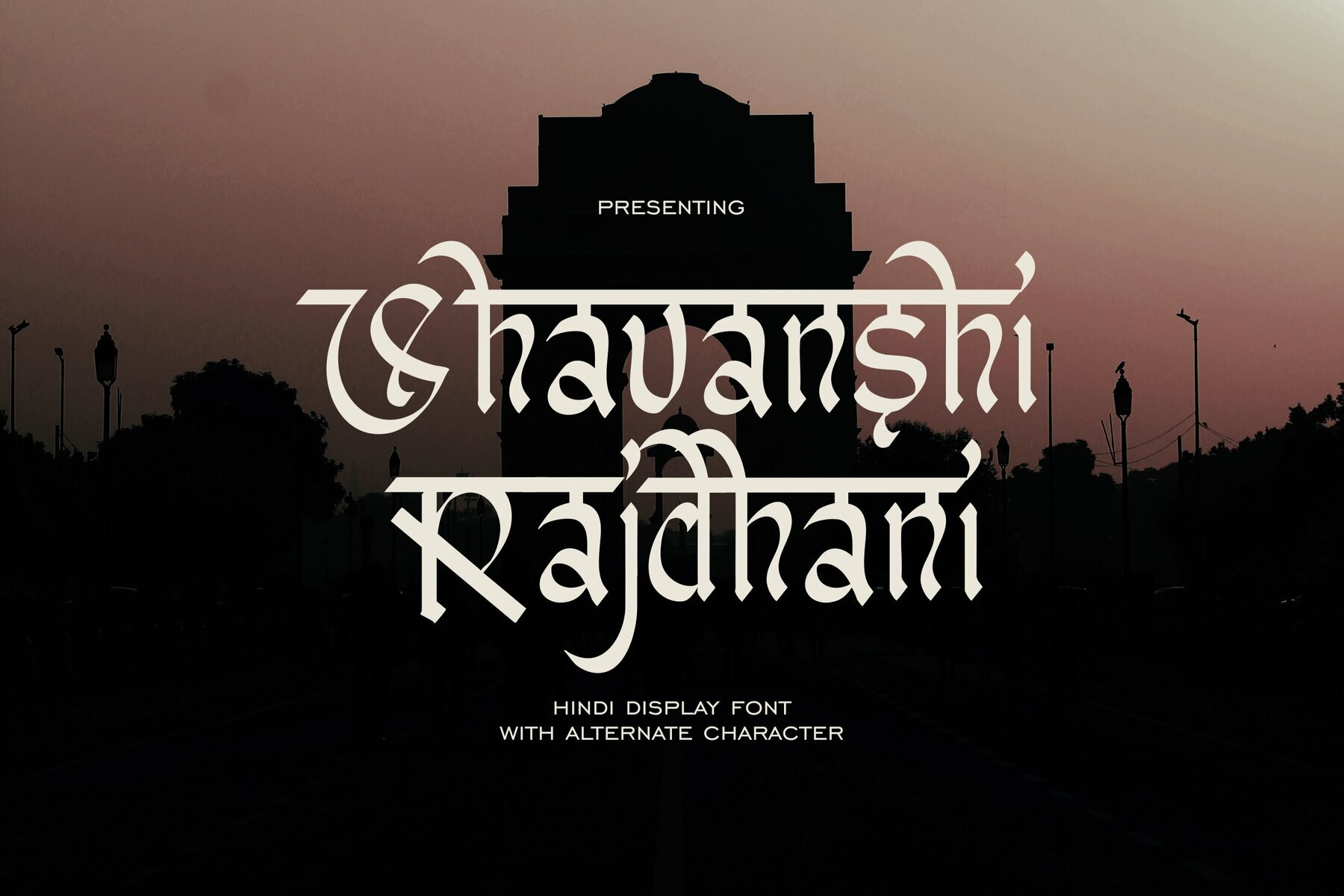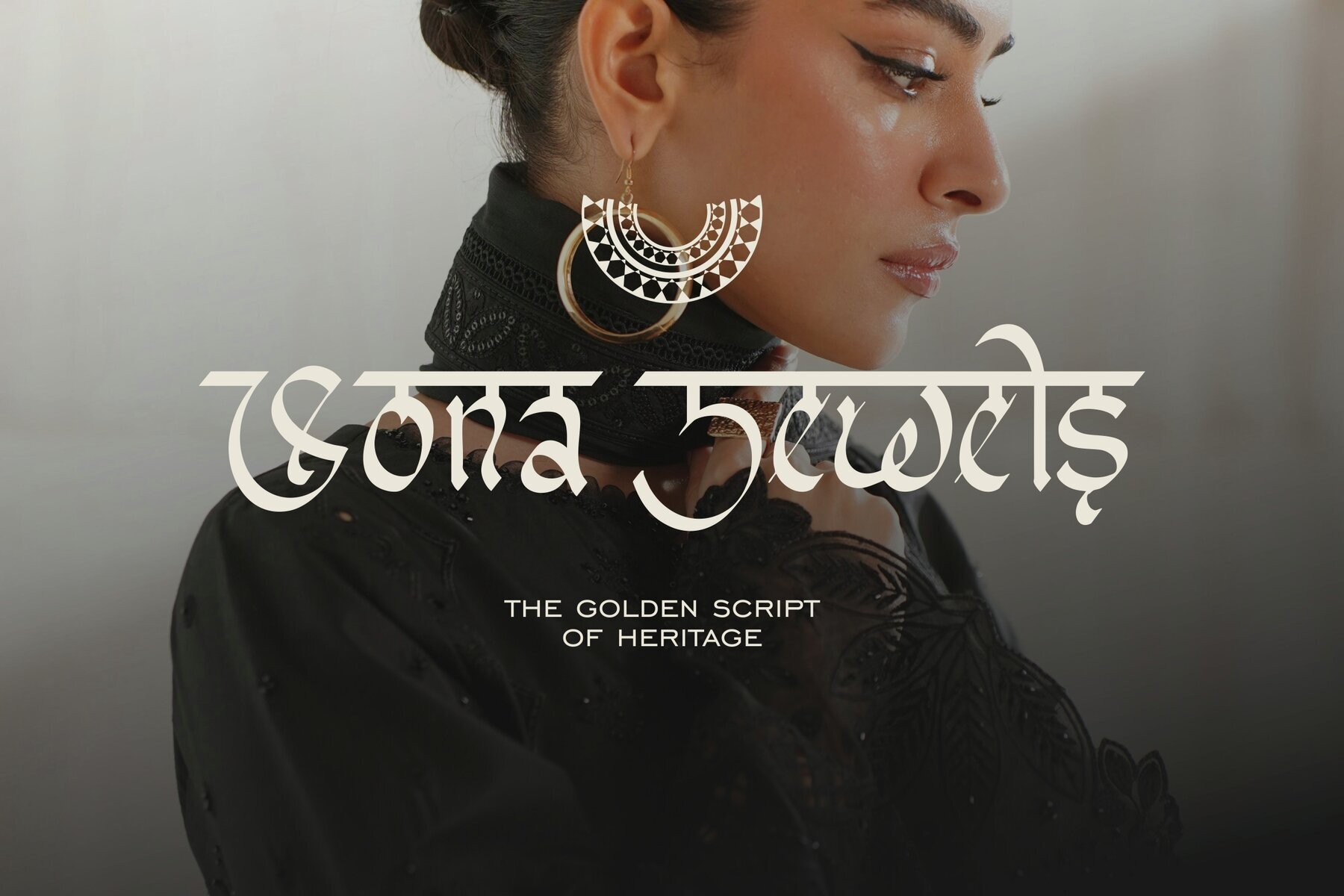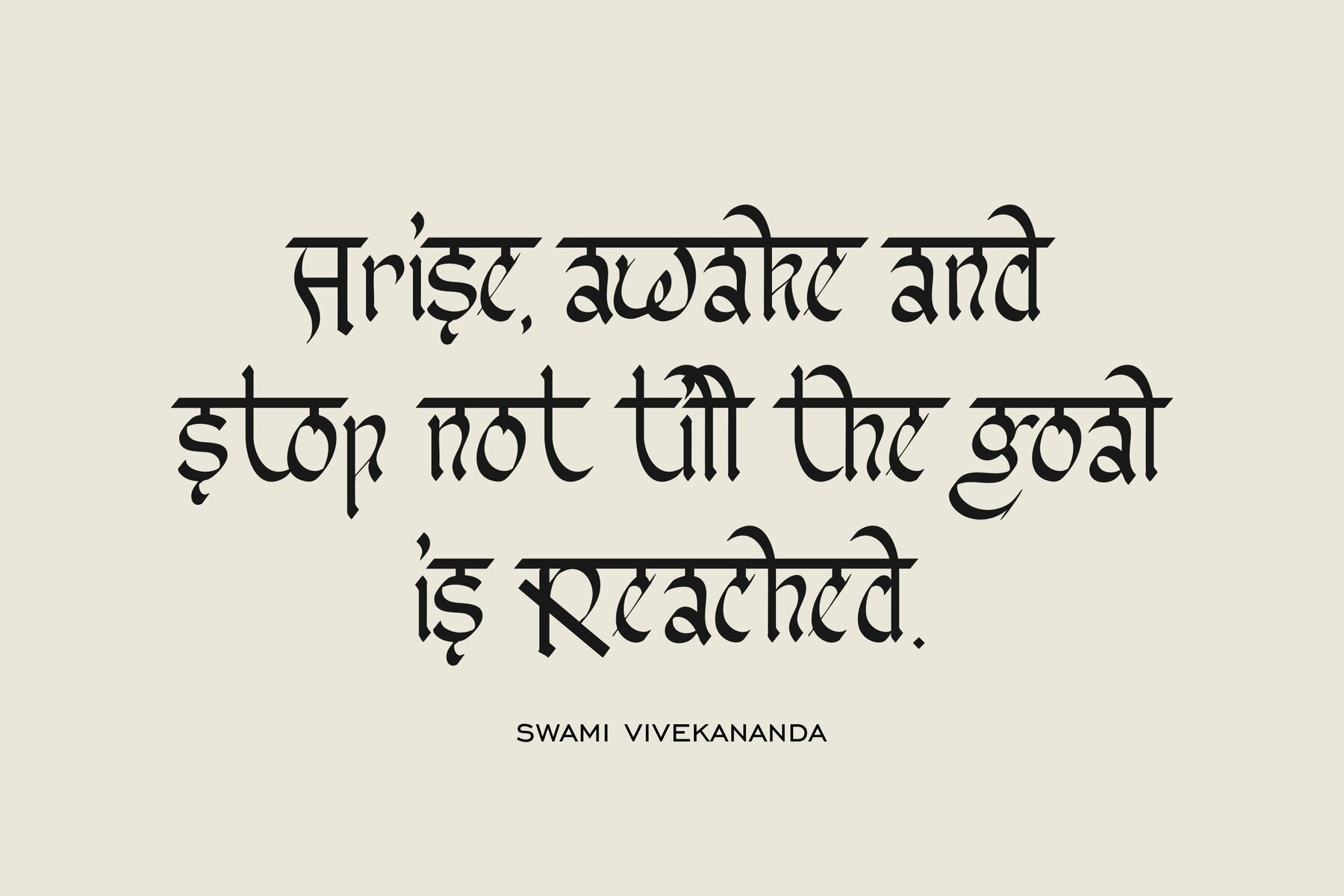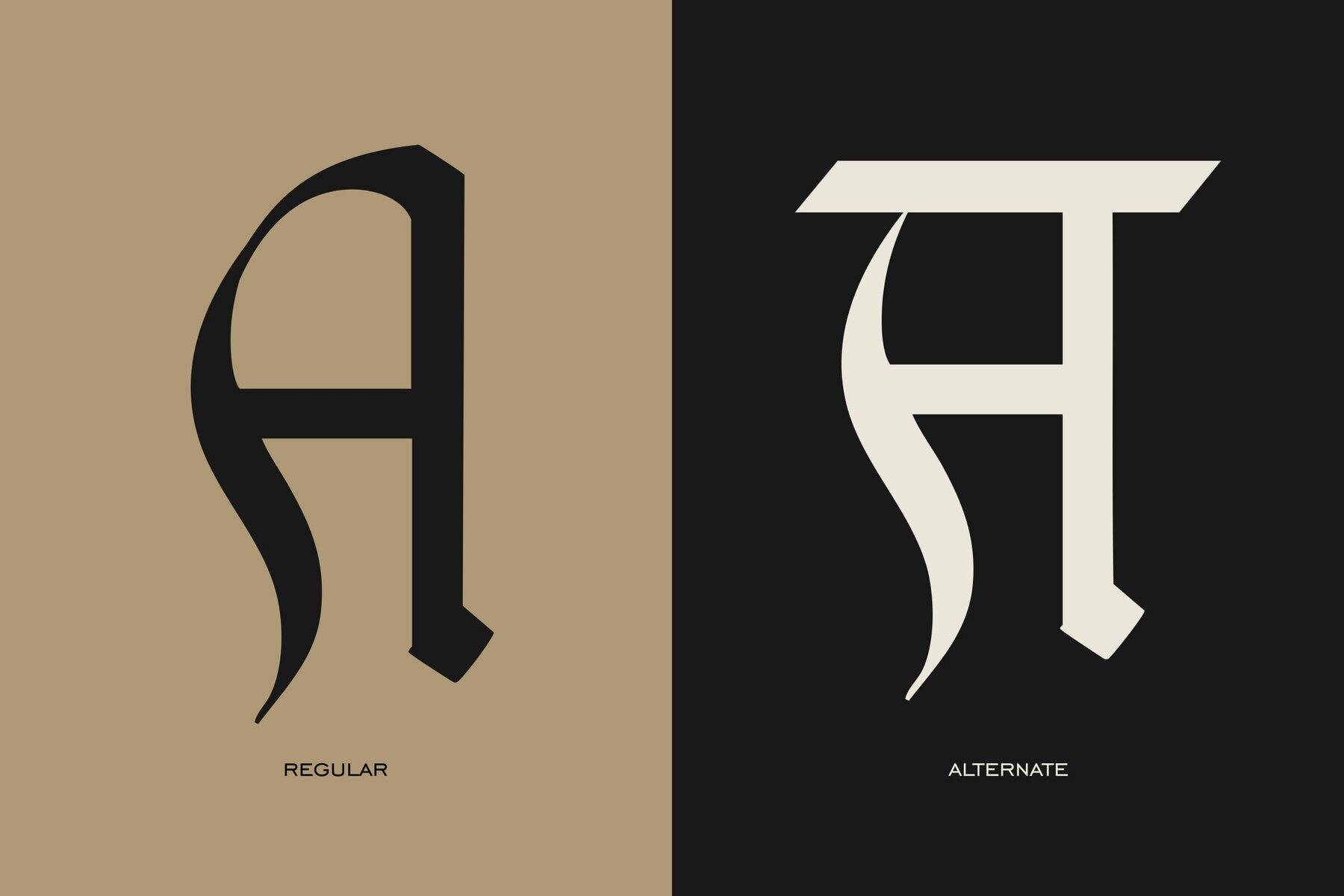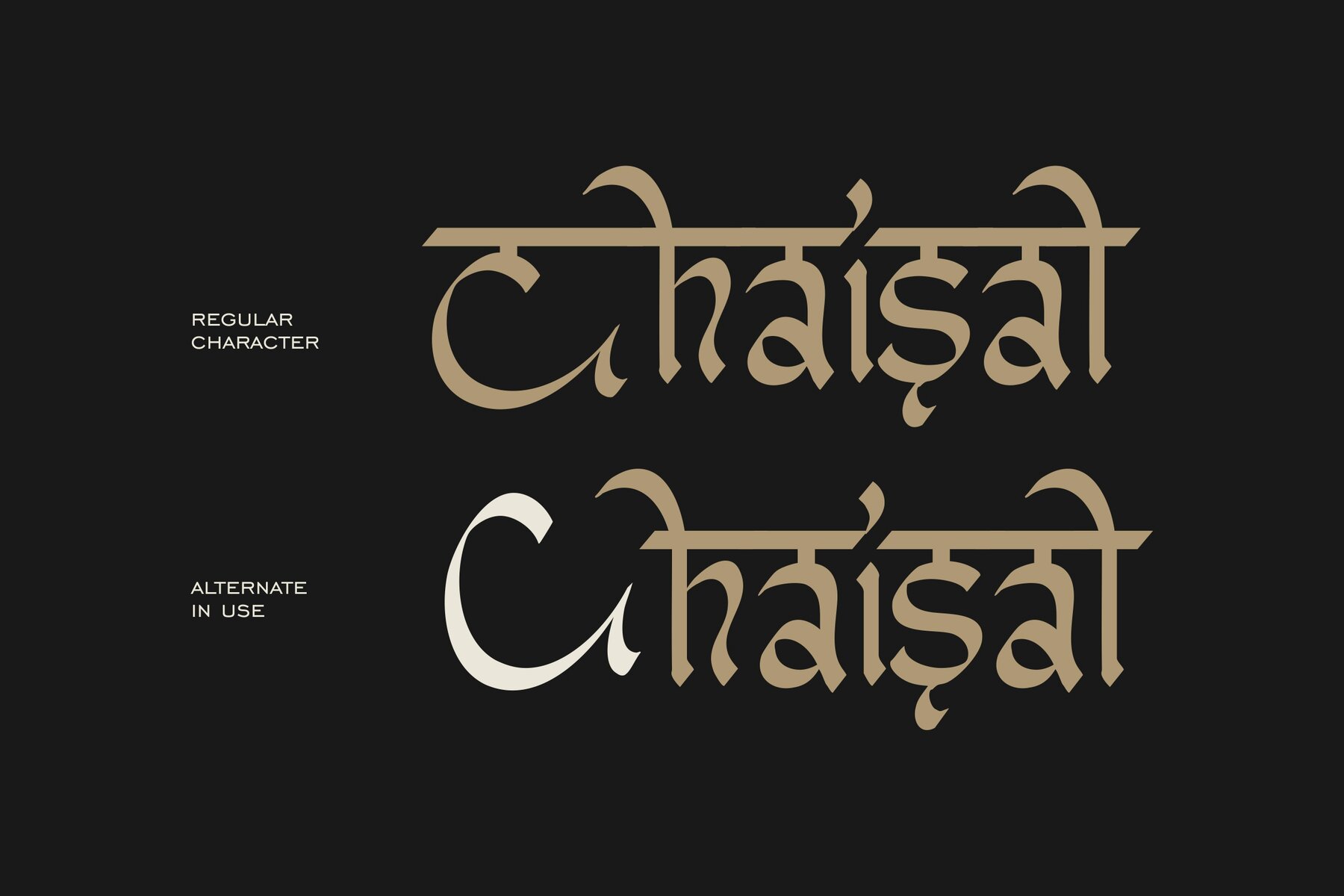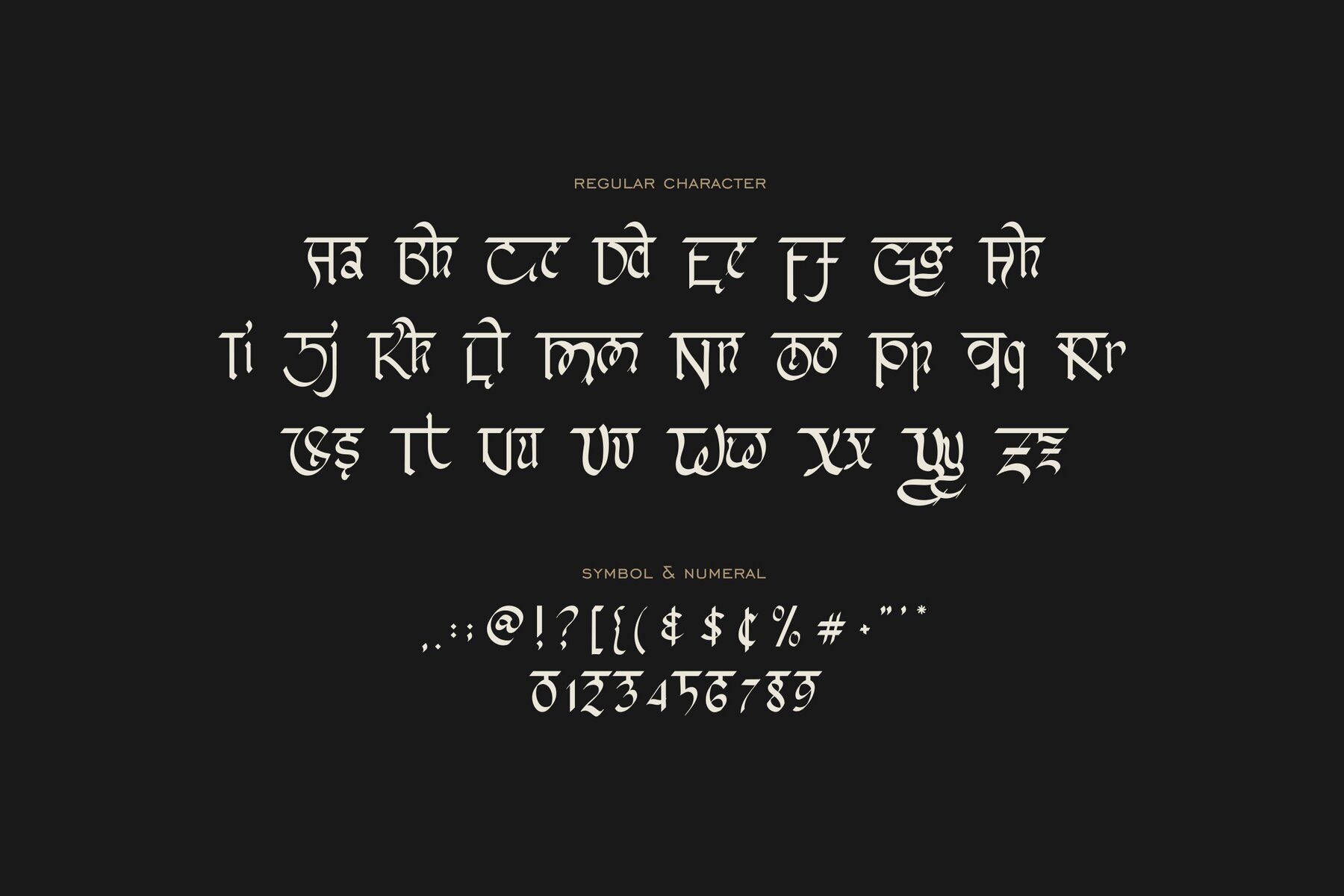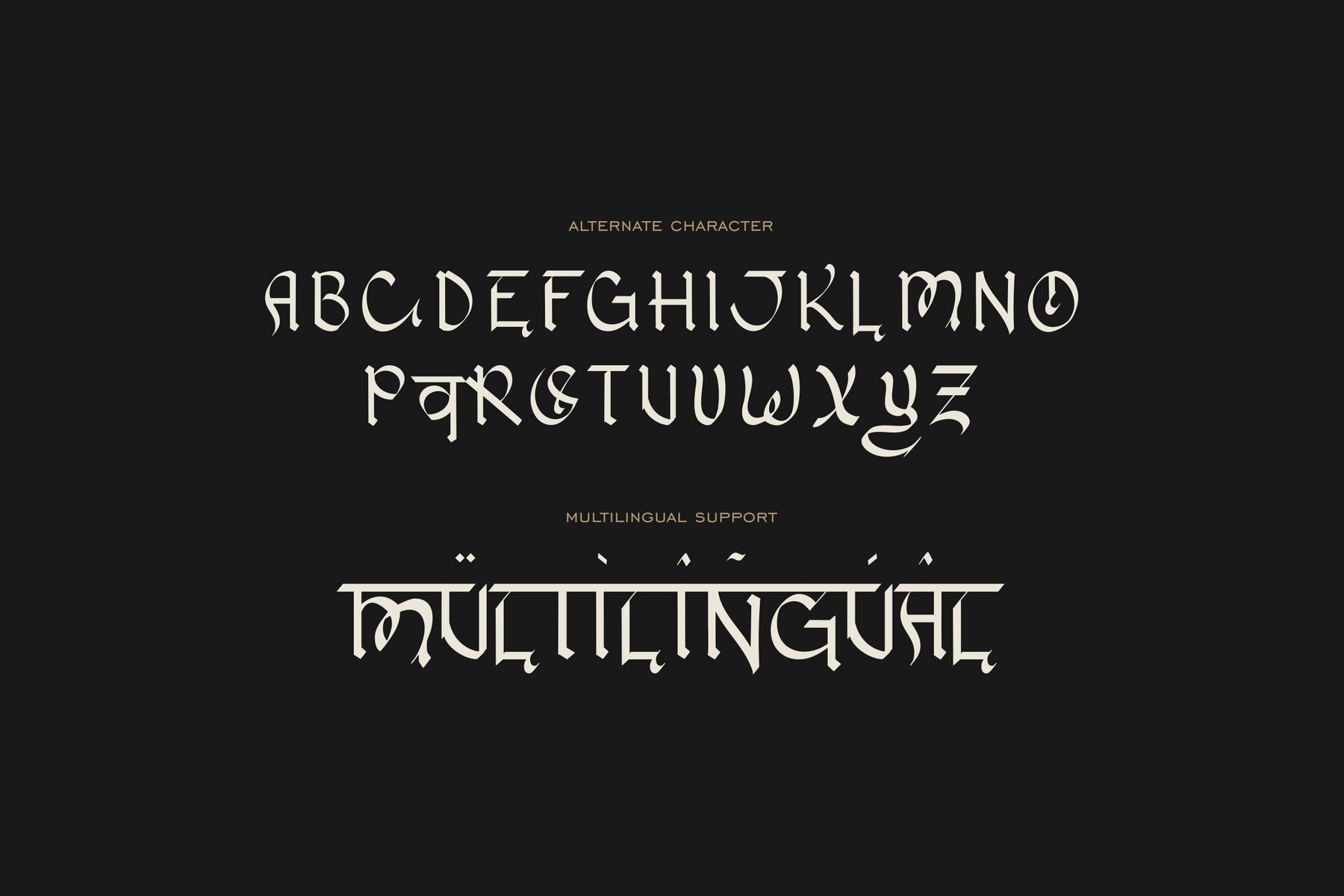
Shavanshi Rajdhani Font
Shavanshi Rajdhani is a Hindi display font inspired by the traditional elegance of Devanagari script. Each character merges the sophistication of Latin letterforms with the expressive nature of Hindi calligraphy. Defined by dynamic top lines and refined strokes, this font captures the depth and artistry inherent in South Asian calligraphic traditions. This font excels in headlines where authenticity and a nuanced cultural perspective are essential. It brings a distinctive touch to design projects for fashion, jewelry, Bollywood film branding, museum exhibits, and documentaries. Shavanshi Rajdhani is also well-suited to visual storytelling across festive occasions like Guru Nanak, Dussehra, Navratri, Ayudha Puja, Karva Chauth, Raksha Bandhan, Visakhi, and the wide spectrum of Indian festivals.Shavanshi Rajdhani Hindi Display Font